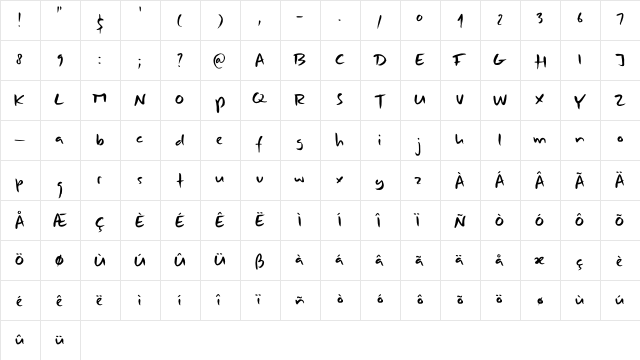
DK Combustible Regular
| Foundry | David Kerkhoff |
| Designer | David Kerkhoff |
Design Context for DK Combustible Typeface
DK Combustible is a composed and adaptable typeface that performs quietly and consistently across a wide range of design contexts.